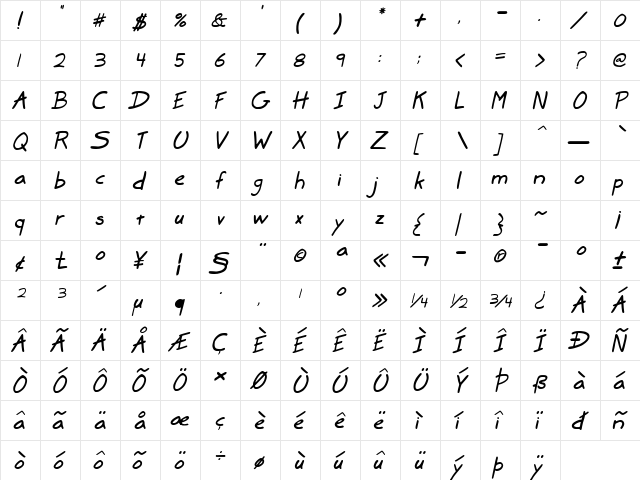
Marker SD Italic
Italic · Steve Deffeyes  ·
Design Context for Marker SD Typeface
Marker SD takes a measured approach to typography — its balanced proportions and neutral character make it a reliable workhorse for both digital and print work. The slanted form adds forward momentum and visual energy.
Pro Tip: Try Marker SD for annotation and caption copy alongside an upright companion — the contrast in angle creates a dynamic but ordered typographic system.